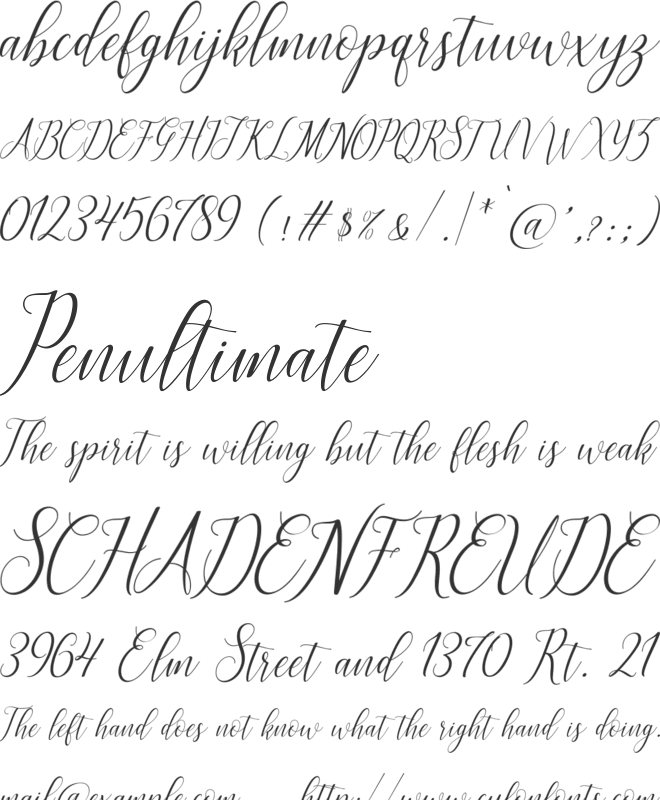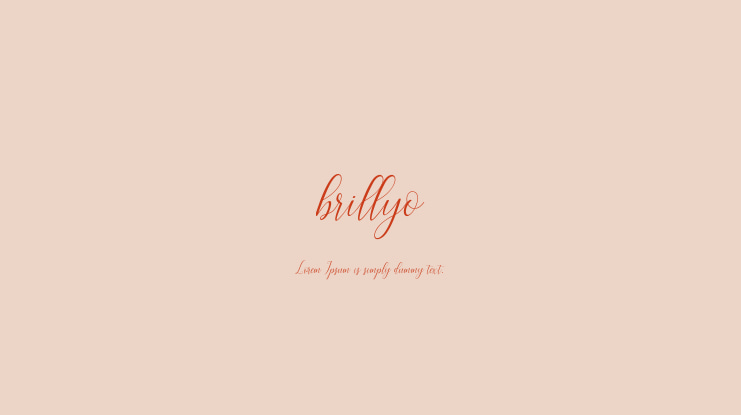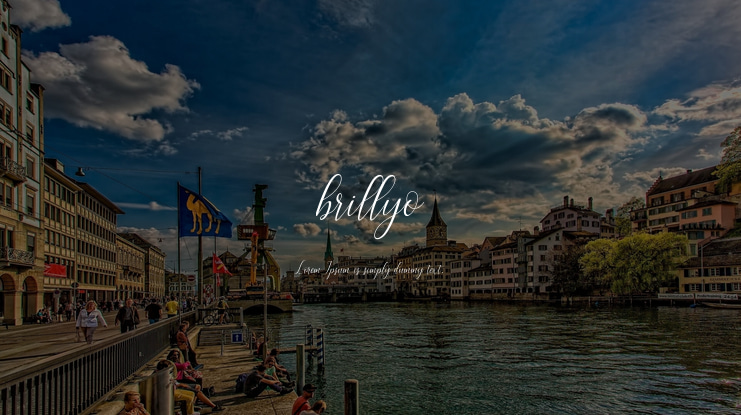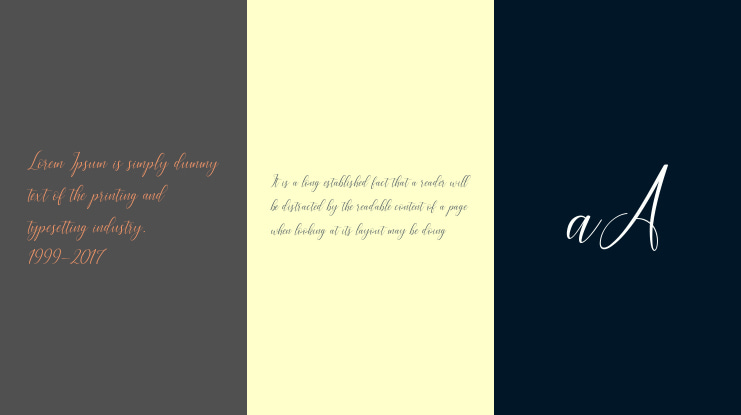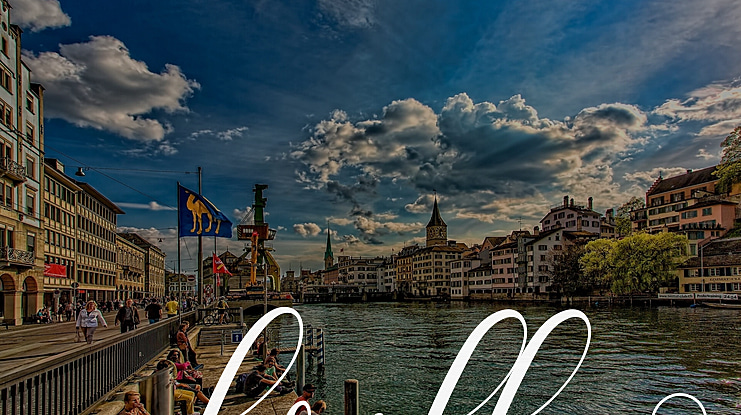
brillyo Font Family
Brillyo Font Family modern script with a handmade calligraphy style, decorative characters and a dancing baseline! So beautiful on invitation like greeting cards, branding materials, business cards, quotes, posters, and more!!